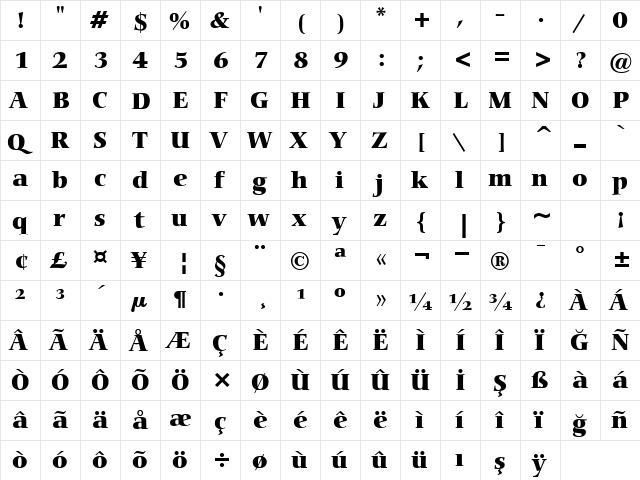
00230 Regular
Design Context for 00230 Typeface
00230 offers clean, dependable letterforms without strong stylistic allegiance, making it a practical choice for designers who need flexibility.